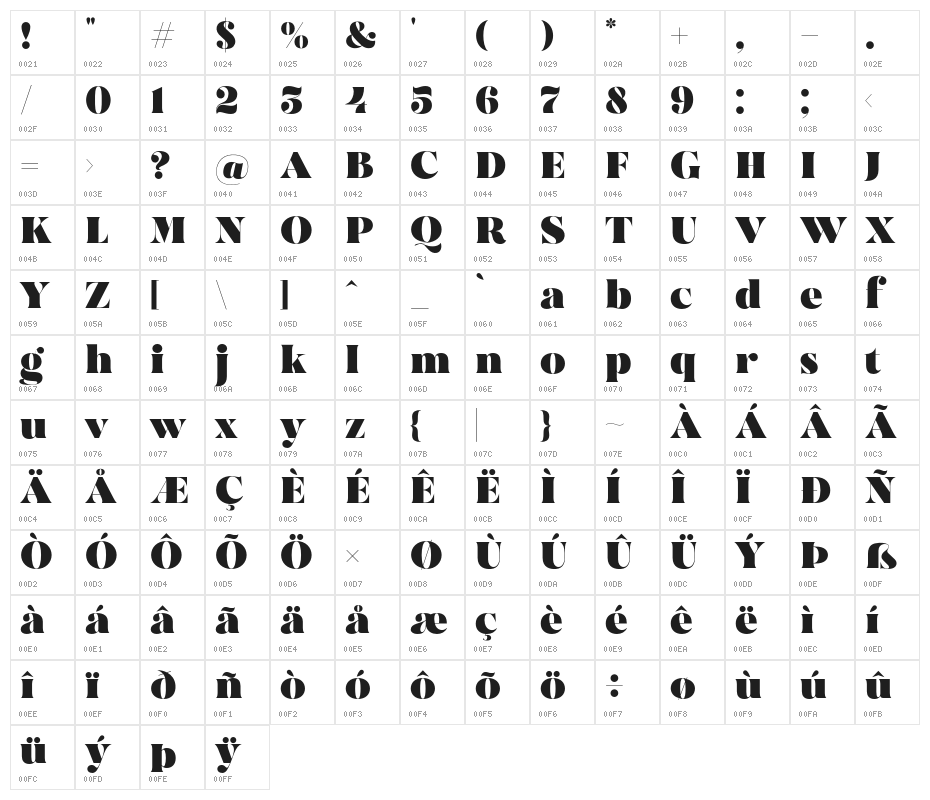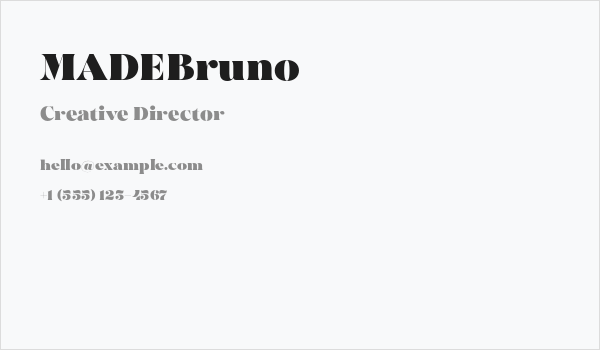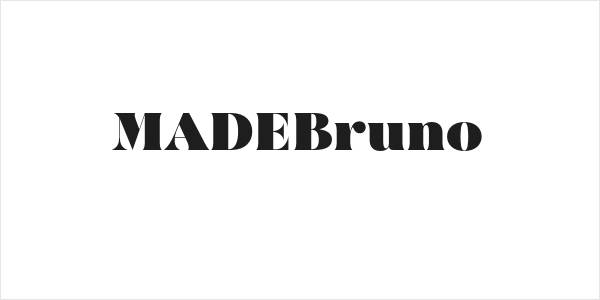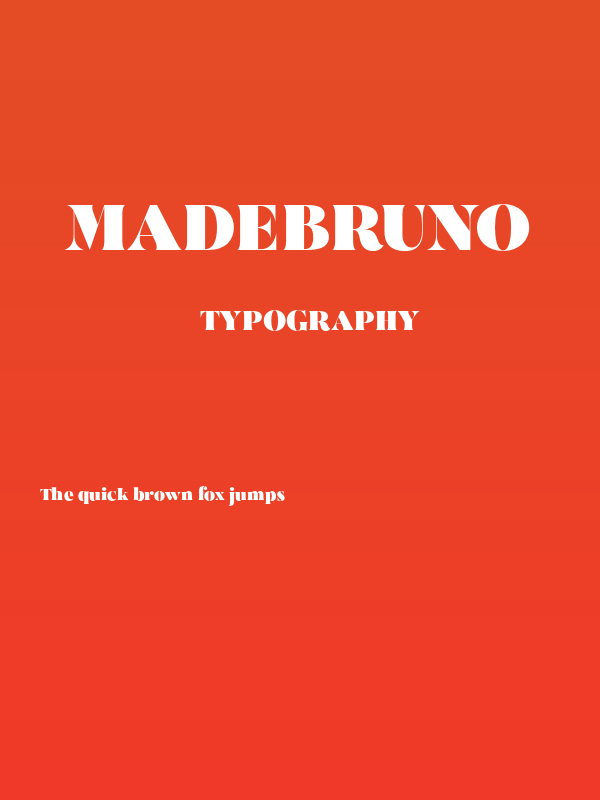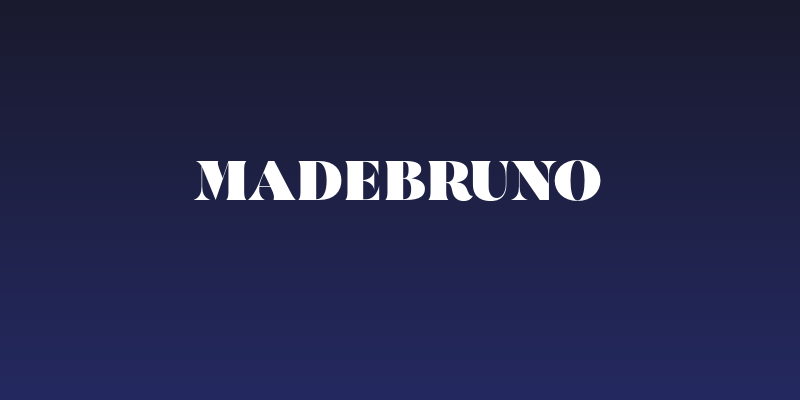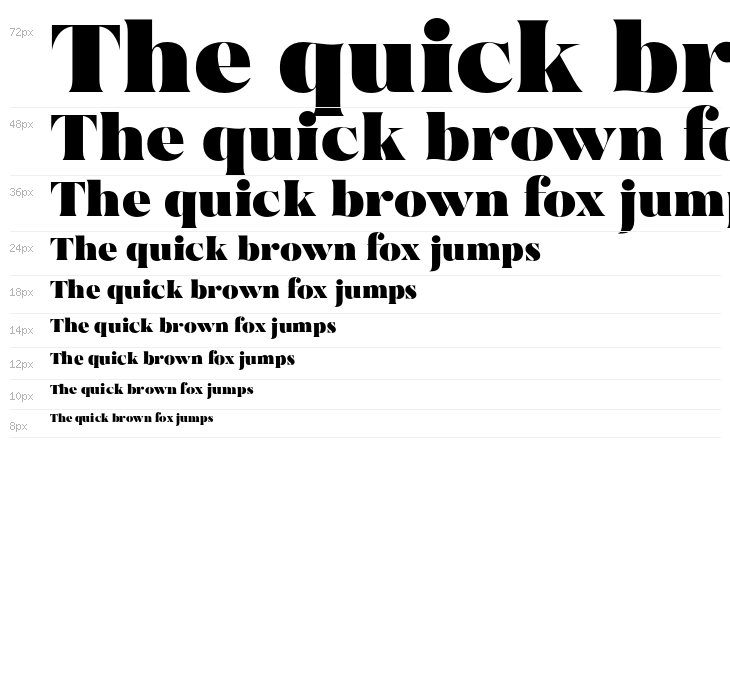
MADEBruno Font
MADEBruno Description
This font features a bold and striking design with high contrast between thick and thin strokes, giving it a dramatic and impactful appearance. The uppercase letters are particularly wide and commanding, while the lowercase letters maintain a consistent and balanced form. The numerals are equally bold, with a unique flair that adds character. The special characters are designed to complement the overall style, making it suitable for attention-grabbing headlines and logos. The font's modern aesthetic is enhanced by its clean lines and sharp angles, making it versatile for various design projects.
| Proposed Projects | Ideal for branding, advertising, posters, and editorial design. |